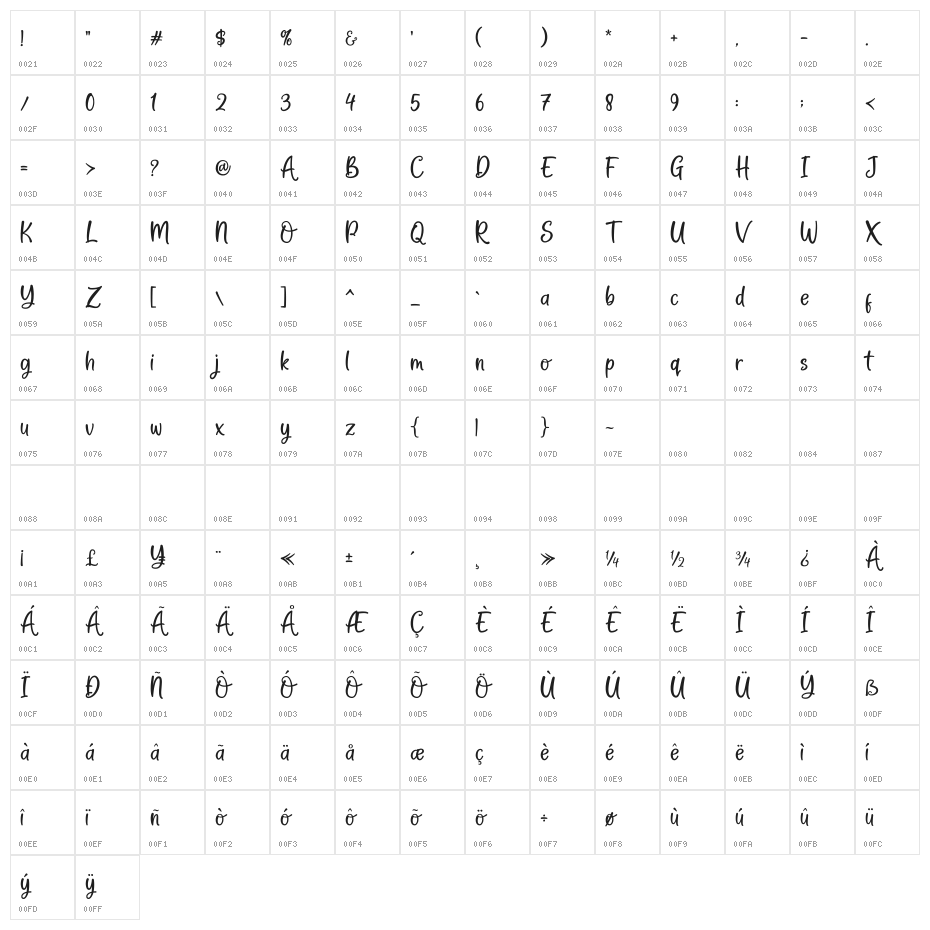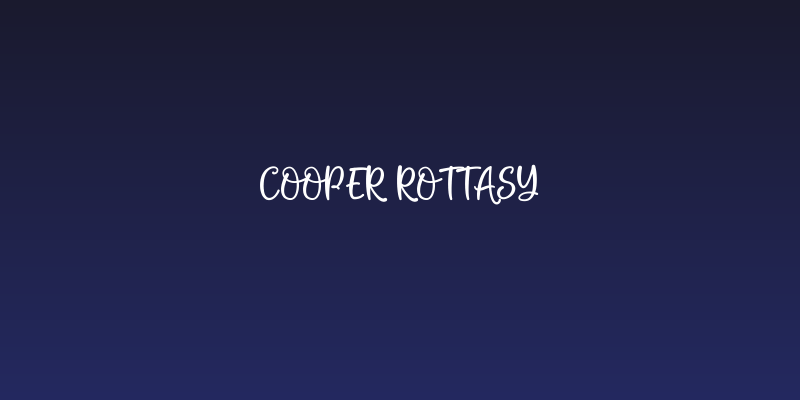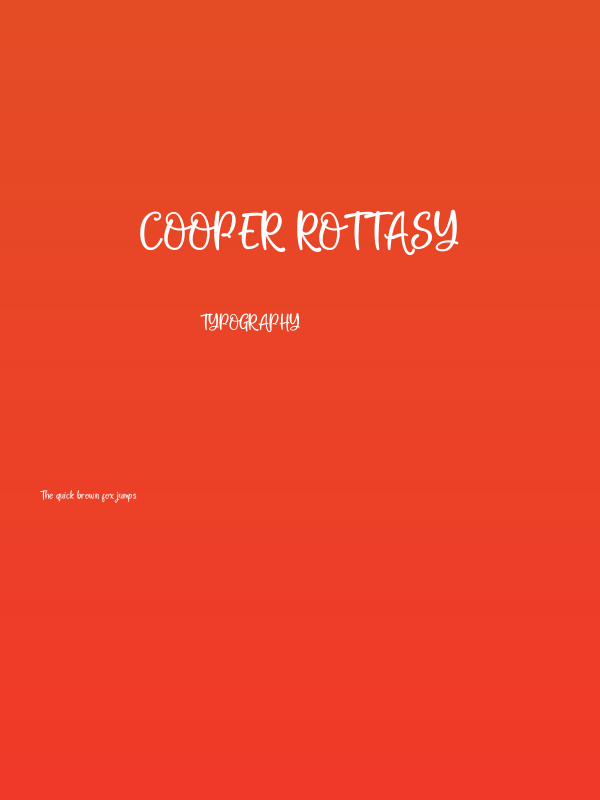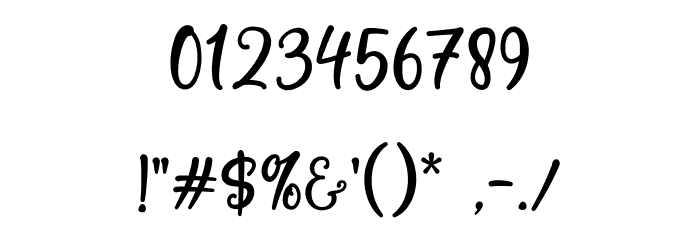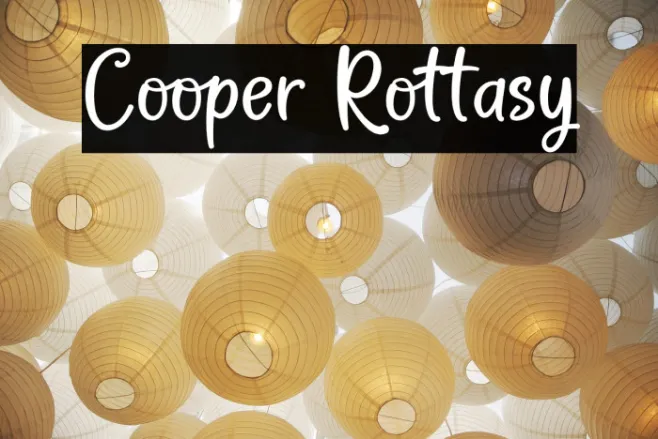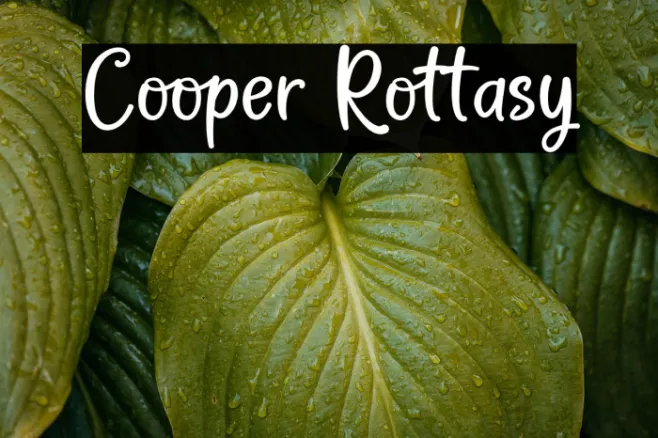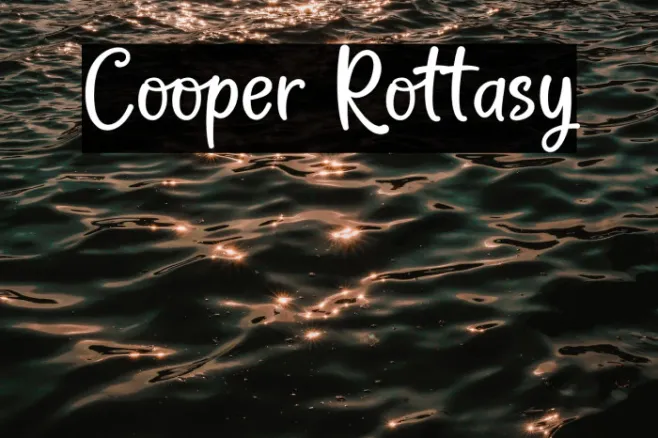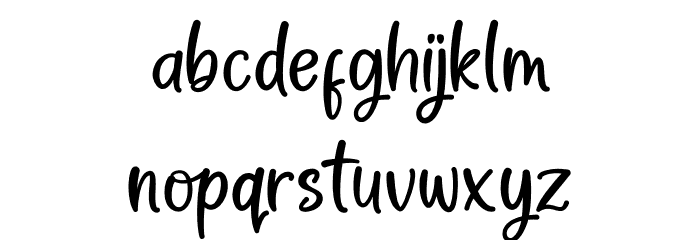
Cooper Rottasy Font
Cooper Rottasy Description
This font features a playful and casual script style, characterized by its smooth, flowing lines and slightly irregular strokes. The uppercase letters are bold and prominent, while the lowercase letters maintain a consistent, friendly appearance. The numerals are clear and easy to read, complementing the overall informal aesthetic. Special characters are well-integrated, maintaining the font's cohesive style. The font's design is approachable and versatile, making it suitable for a variety of creative projects.
| Use Case | Logos, Invitations, Social Media |
| Proposed Projects | Ideal for greeting cards, invitations, personal branding, and social media graphics. |